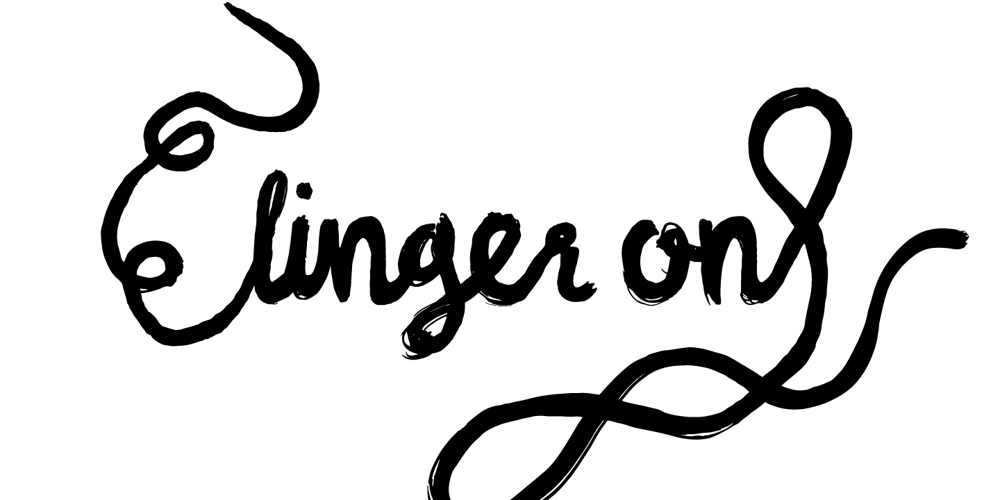
Linger On Font Family was designed by Andreas Brunelius and published by Gustav & Brun. Linger On contains 1 styles and family package options. Linger On is a handwritten fairly rough brush script. It’s equipped with some Open Type features and an extra set of the most common used letters. It also includes lines and endings for you to have more fun with and make Linger On even more unique.